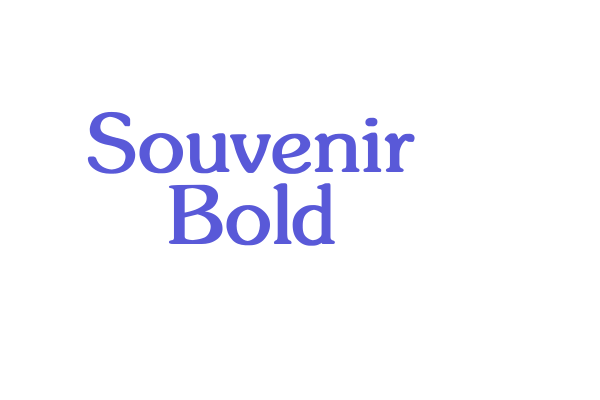
Souvenir Bold is a classic serif font from the Souvenir font family. Its bold style gives it a strong and impactful presence, making it ideal for headlines, titles, and branding materials. With its timeless design and versatility, Souvenir Bold is a go-to choice for projects that require a touch of elegance and sophistication.